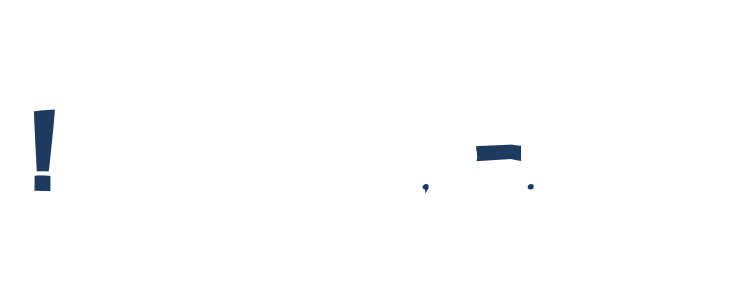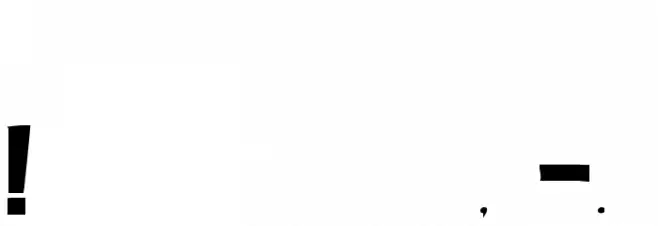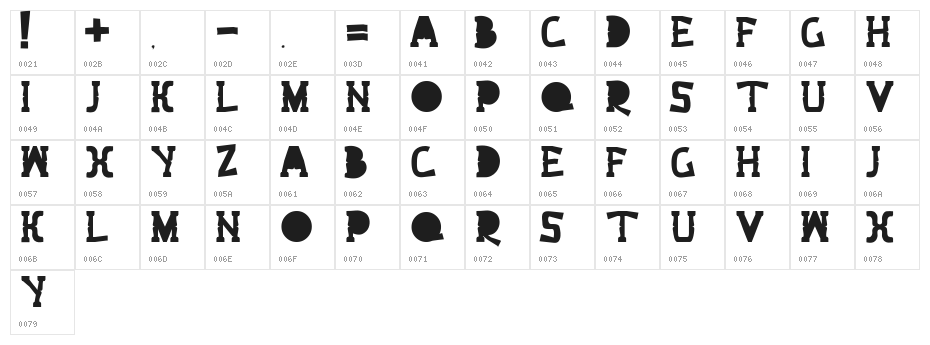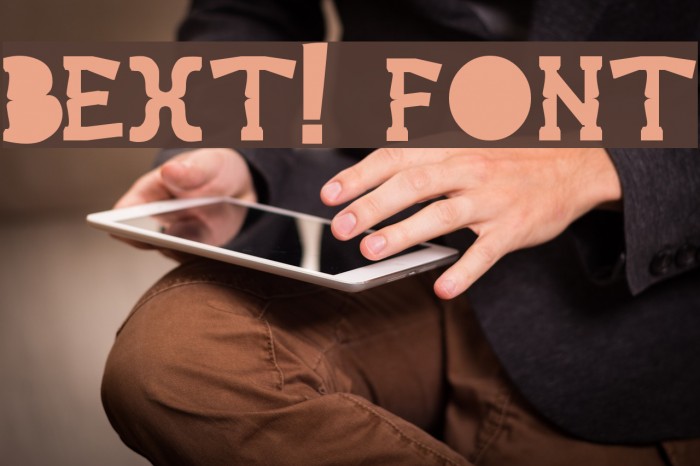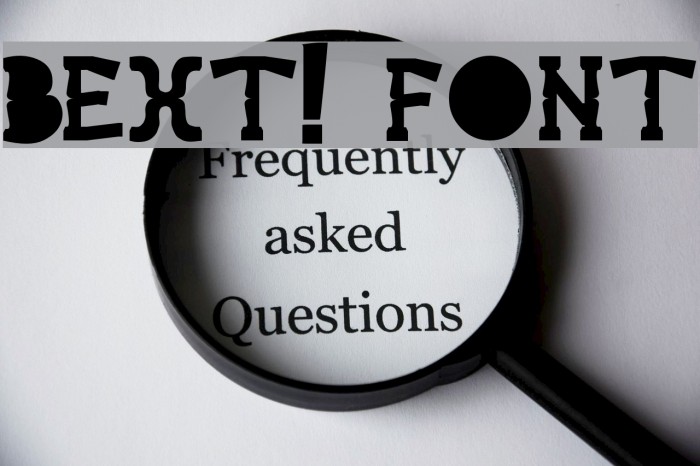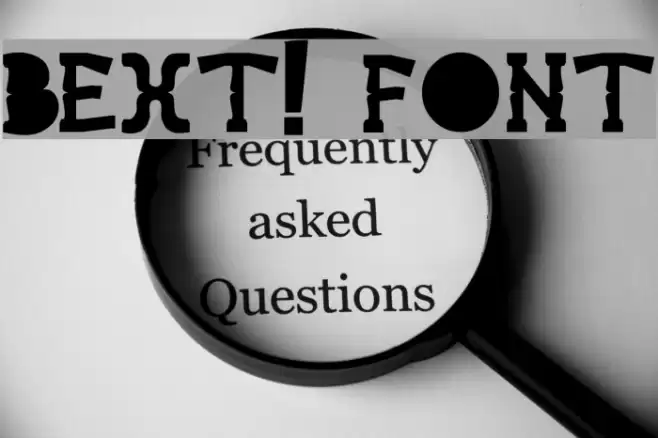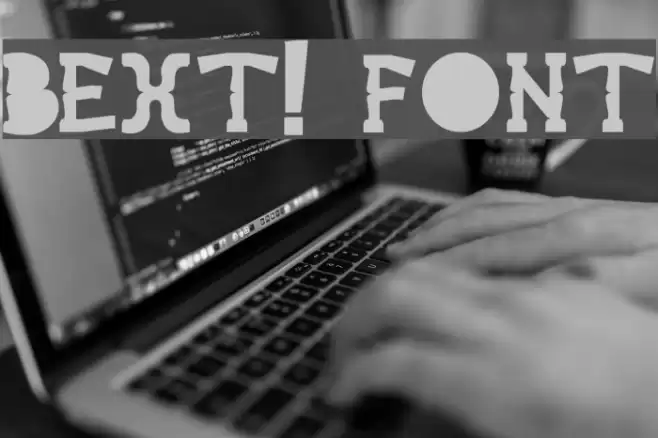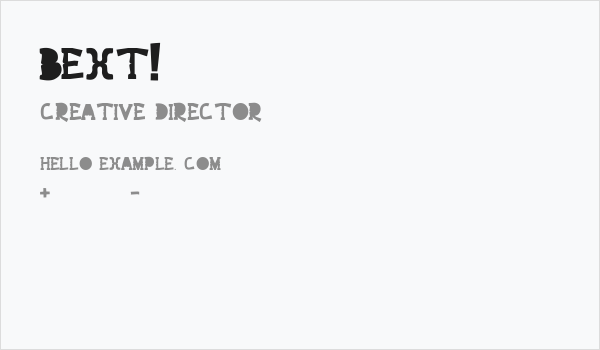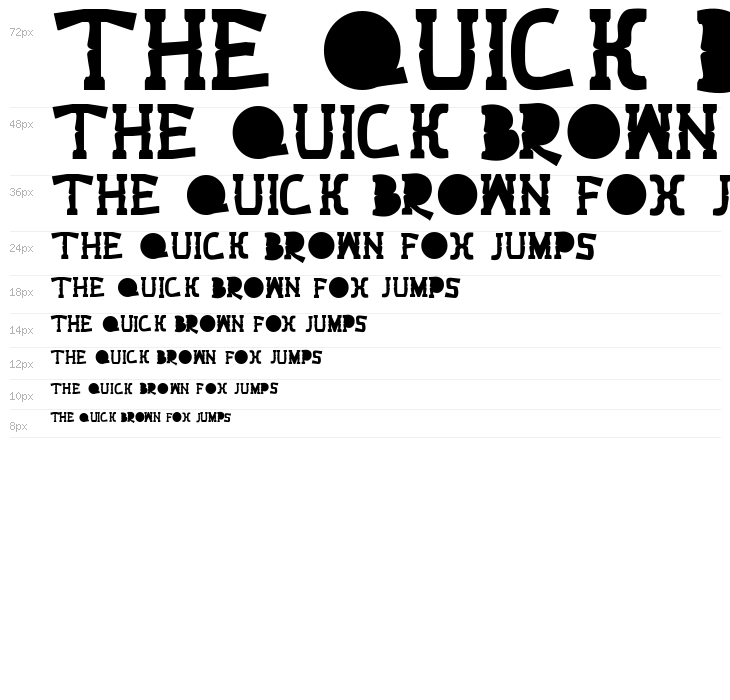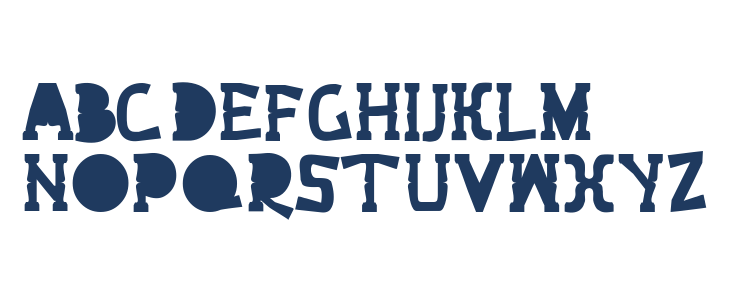
Bext! Font
Bext! Description
This font features a bold and playful design with a distinctive, quirky style. Each character is crafted with irregular, jagged edges, giving it a unique and whimsical appearance. The uppercase letters are particularly striking, with exaggerated curves and angles that create a sense of movement and energy. The font maintains a consistent weight throughout, ensuring readability while still offering a decorative flair. Its bold presence makes it ideal for eye-catching designs, while the irregular shapes add a touch of fun and creativity.